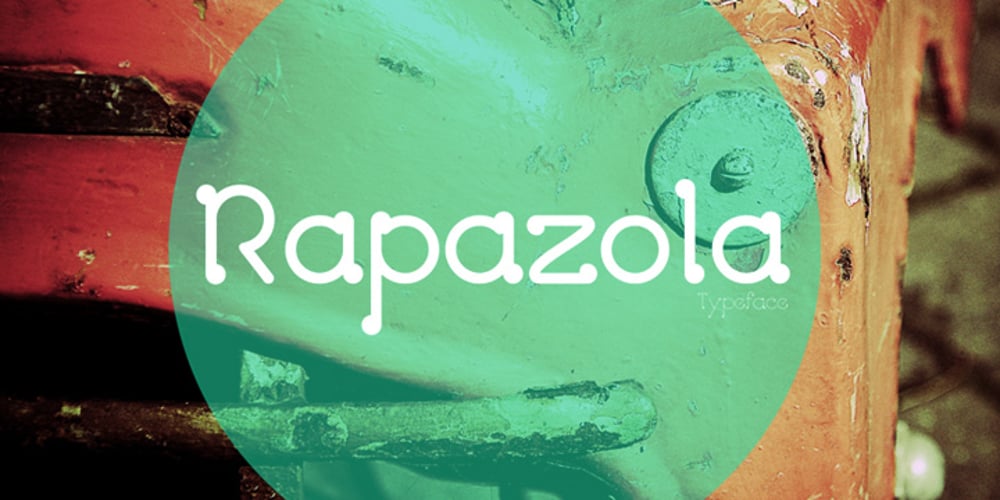
Rapazola
Rapazola font
Rapazola Font Family was designed by published by César Modesto. Rapazola contains 5 styles and family package options. Rapazola is a new geometrical typeface, it was inspired by the moments of childhood and it’s play. This typeface contains five different weights, Extra Light, Light, Regular, Bold and Extra Bold, all with the completed alphabet A to Z, upper and lower case, all numbers and some symbols.